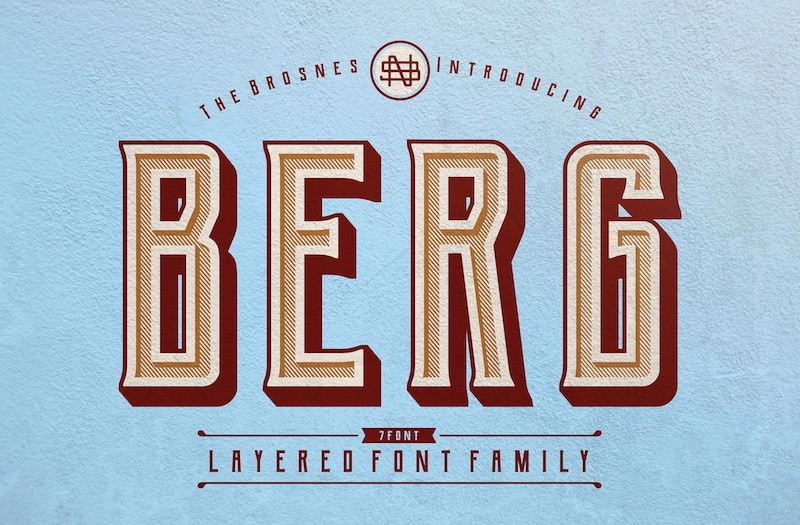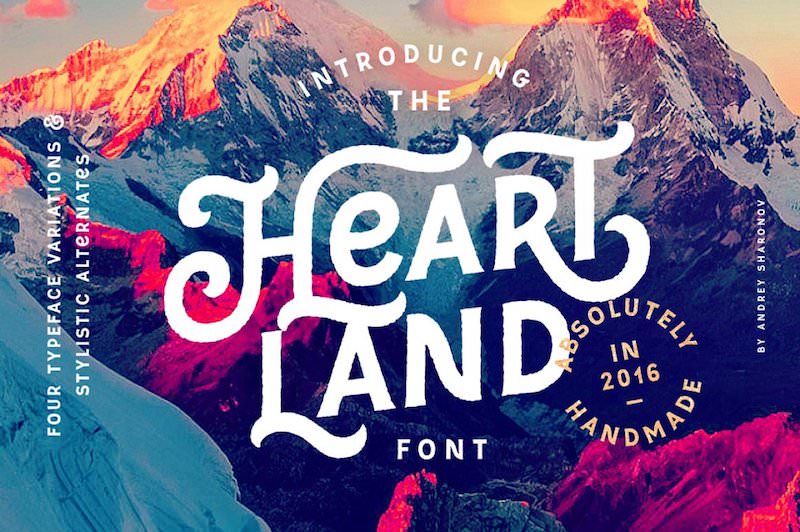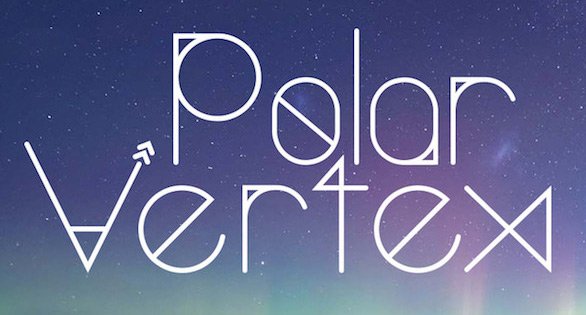
If you want to make your design stand out and grab attention, choosing the right screen fonts is essential. Unlike regular text typefaces, display fonts are expressive, stylish, and ornamental — they set the overall tone of your design and instantly create an impact.
1. Berg Free Layered Font Family
Inspired by vintage designs on signs, posters and labels, Berg is a family of 7 fonts – Regular, Extrude, Inline, Shadow, Ornament, Western and Rough (a shabby textured font) that can be used together to create eye-catching text effects.
This family of vintage screen fonts, designed by Brosnes Design Co.
2. Polar Vertex  Decorative Font
A decorative typeface with a whimsical feel, Polar Vertex has elements of nautical, celestial and geometric patterns in its characters. Created by Katherine Howard, it will give uniqueness to group names, brands and headlines in magazines (architecture, technology, art, design, etc.).
It contains uppercase and lowercase letters, numbers, and basic symbols and punctuation marks.
3. Antre  Contemporary Script Typeface
Antre is an all lowercase typeface with a modern feel. It has smooth connected characters with flowing outlines and will look impressive on posters, magazines and other display materials. The font, designed by Taner Ardali,
4. Roska  Stencil font
Roska is an all caps stencil font with round edges from Uppertype. A display sans, it includes numerals and punctuations and can be downloaded in TTF format.
5. Metropolis Art Deco font
Metropolis by Josip Kelava is an art deco style font representing the era of the 1920s industrial movement. Metropolis is a bold double line font that is perfect for giving your work a retro feel.
6. Higher  Blocky Display Typeface
Higher, a student project by graphic designer Marisa Passos, is a narrow tall typeface. It contains a full set of upper case characters (A – Z) and numbers (0-9).
The font has blocky characters consisting of straight lines with sharp angles. Above is intended for use with relatively large fonts to create bold, eye-catching headlines.
7. Cheque  Display Font
Check is a gorgeous free display font designed by Mirela Belova from Fontfabric. Based on geometric shapes, the font has a stylish vintage look.
It comes in two styles: Check Regular, which is the outline style shown in the image above, and Check Black, its filler version. The font contains both Latin and Cyrillic characters.
8. Glamor  Stylish Font
The stunningly stylish Glamour font is perfect for creating posters and promotional graphics for fashion events. The font features high contrast between serif and ballpoint letter strokes for a stylish look.
Glamour is a family of 24 fonts from light to bold that are completely free for commercial work.
Designed by Henrik Ronaldes, it is available for download in TTF and OTF formats.
9. Cheque  Display font
Check is a gorgeous free display font designed by Mirela Belova from Fontfabric. Based on geometric shapes, the font has a stylish vintage look.
It comes in two styles: Check Regular, which is the outline style shown in the image above, and Check Black, its filler version. The font contains both Latin and Cyrillic characters.
10. Accent is a minimalist font
Ultra-light and minimalistic, Accent is an experimental typeface by Nelson Balaban that combines thin lines and bold geometric shapes in letterforms. This beautiful display type was designed for short words and headlines.
Heartland, created by Andrei Sharonov, is perfect for creating logos, t-shirt lettering, packaging, brochures and more.